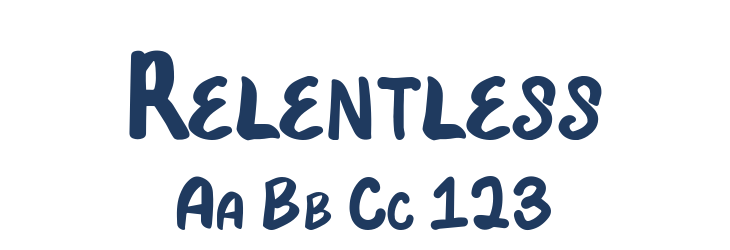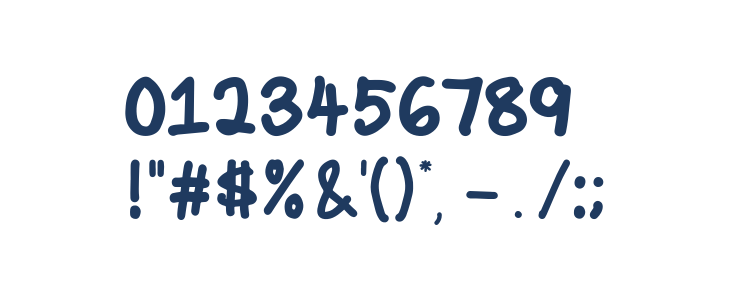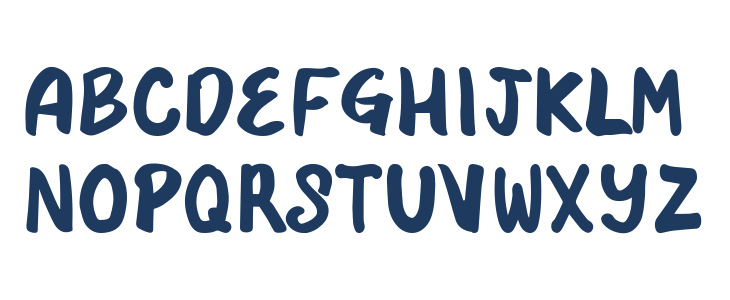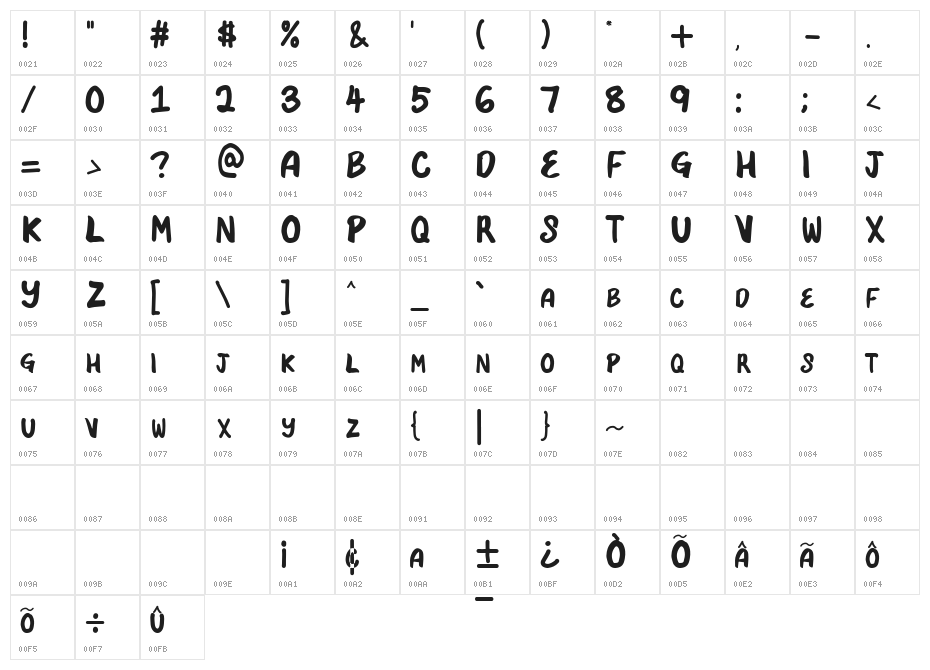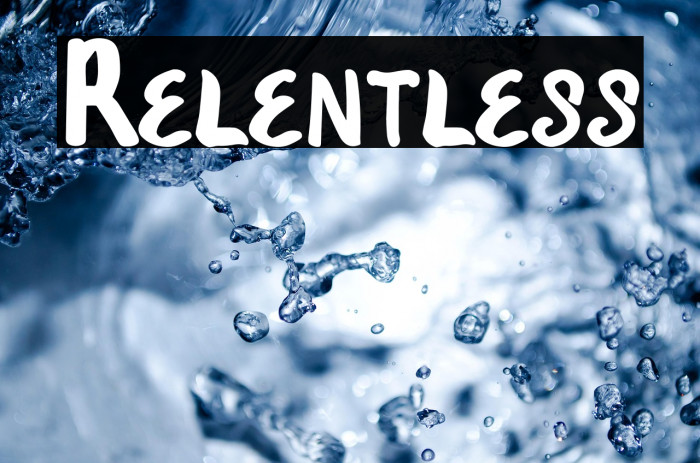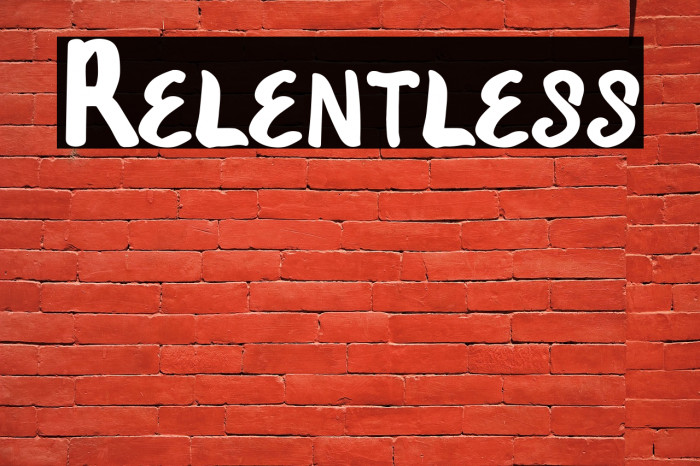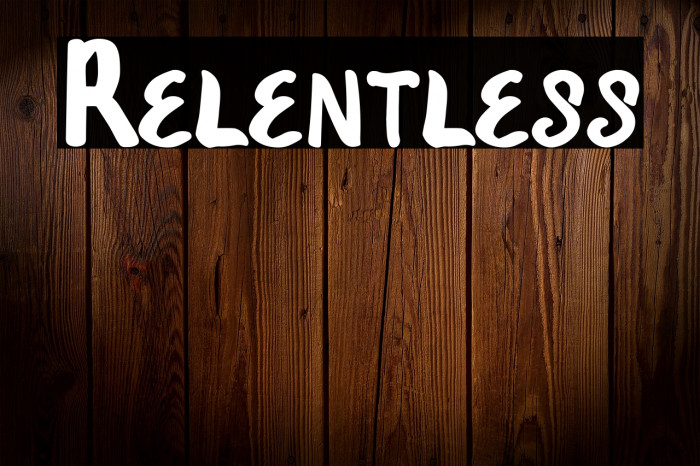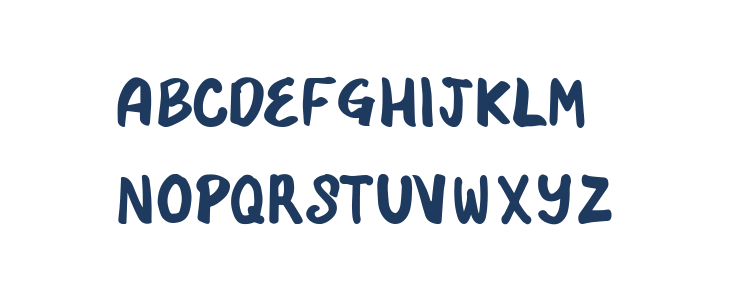
Relentless Font
Relentless Description
A bold, playful handwritten typeface with rounded edges and irregular strokes, giving it a casual and energetic appearance. The characters are slightly condensed, with consistent stroke width and a lively, informal style.
| Width | Condensed |
| Overall Style | Playful, Casual, Energetic |
| Use Case | Headlines, Posters, Logos, Informal Branding |
| Proposed Projects | Children's books, posters, greeting cards, branding for creative or informal products, social media graphics. |